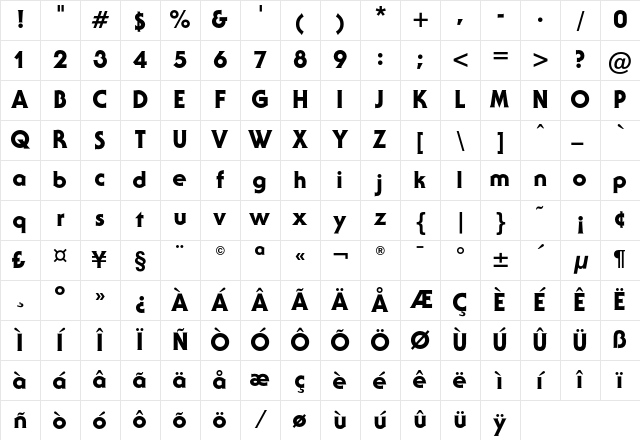
Complete AndroclesOpti-Heavy Regular glyph index. Displaying only characters natively supported by AndroclesOpti-Heavy Regular font.
AndroclesOpti-Heavy is a composed and adaptable typeface that performs quietly and consistently across a wide range of design contexts.